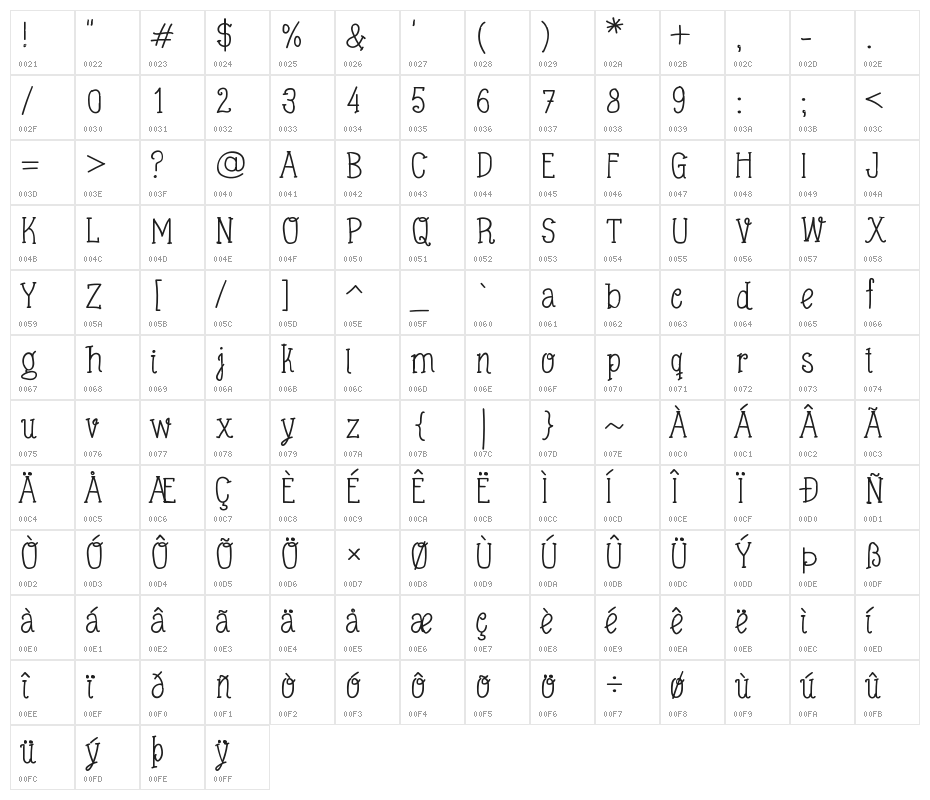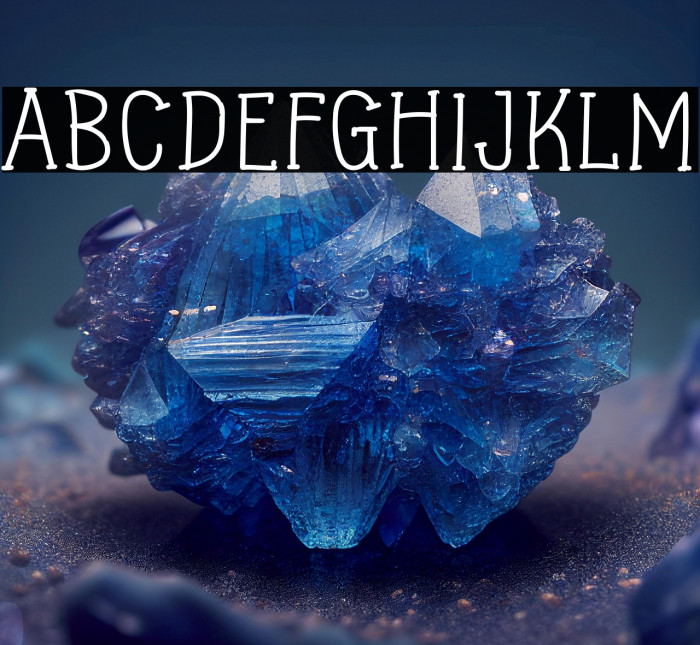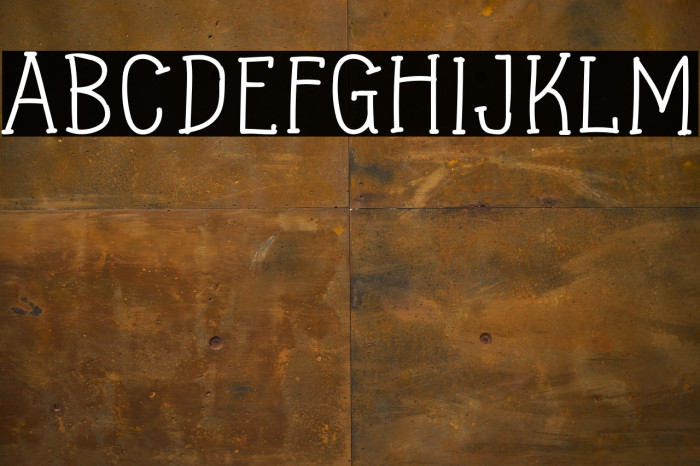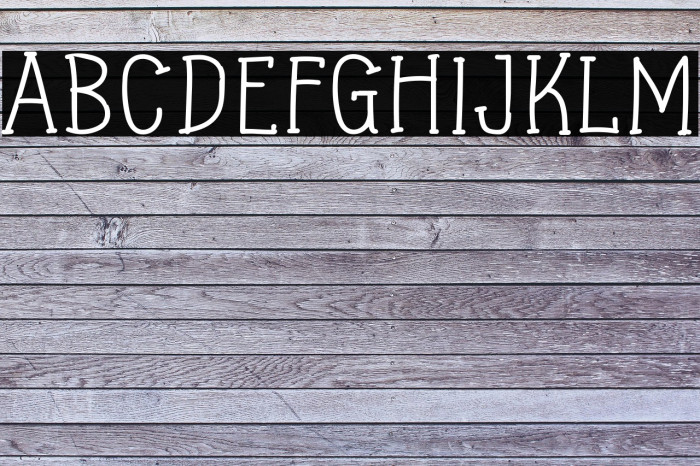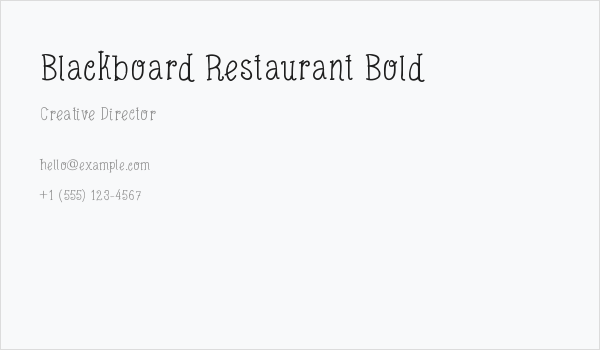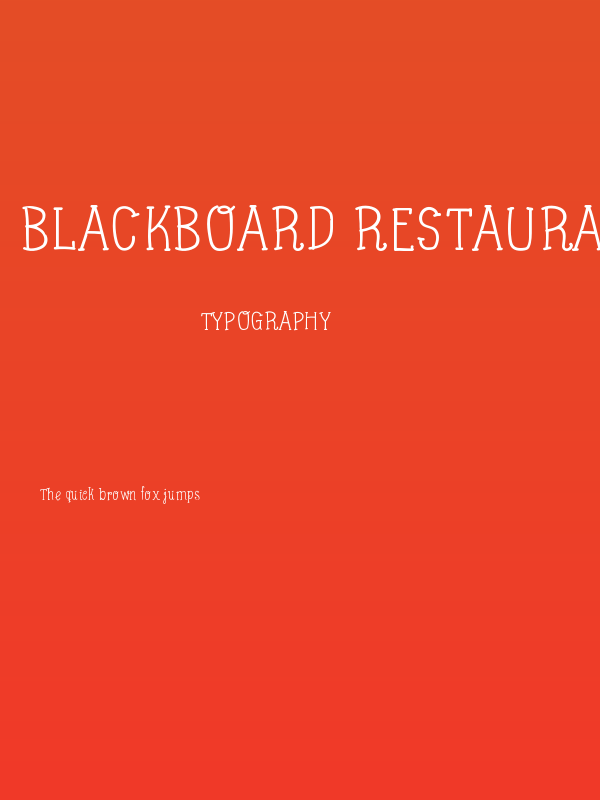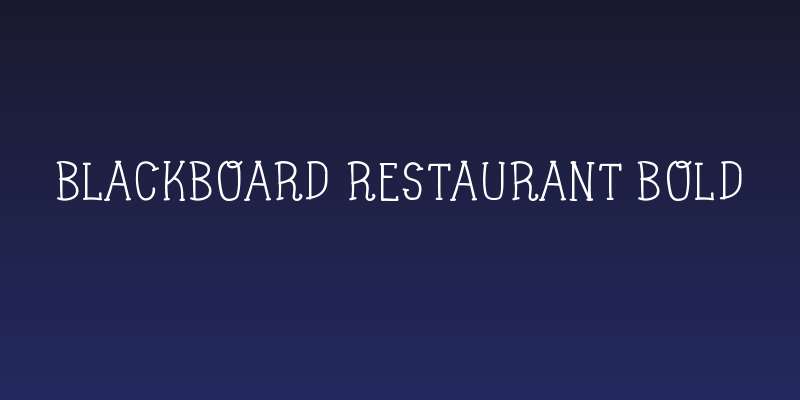
Blackboard Restaurant Bold Font
Blackboard Restaurant Bold Description
This font features a playful and casual handwritten style, characterized by its uneven strokes and slightly irregular letterforms. The uppercase letters are tall and narrow, while the lowercase letters have a more relaxed and rounded appearance. The numbers and special characters maintain the same whimsical quality, making the font feel approachable and friendly. The strokes are consistent in weight, providing a uniform look across all characters. This font is ideal for projects that require a personal touch or a sense of informality.
| Proposed Projects | Ideal for restaurant menus, chalkboard signs, children's books, and casual invitations. |